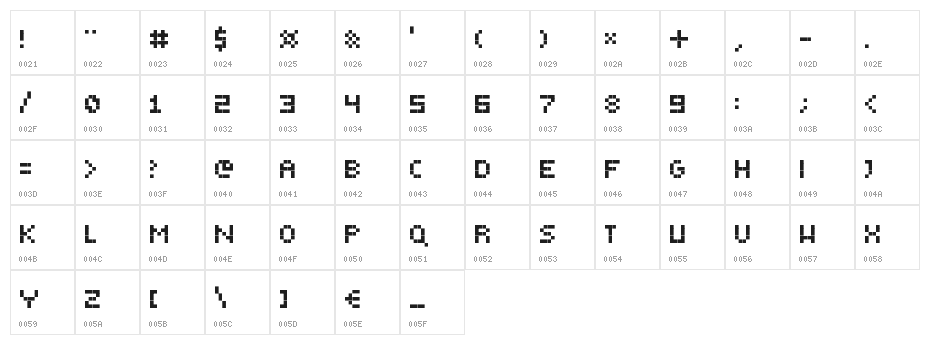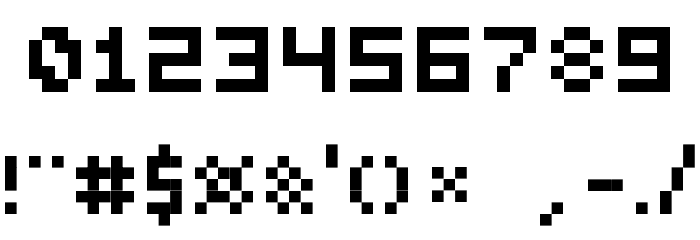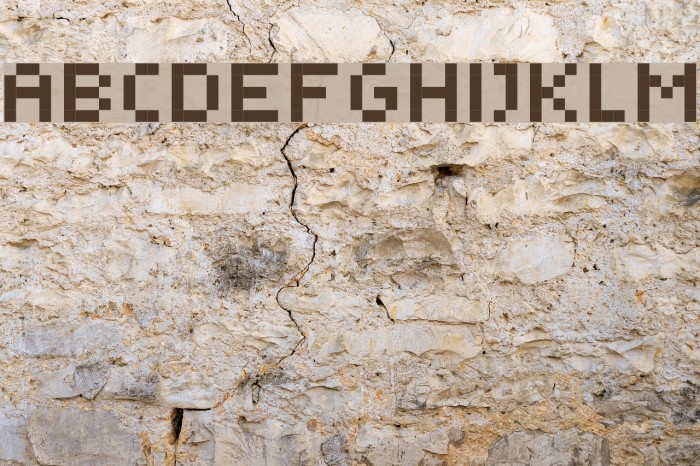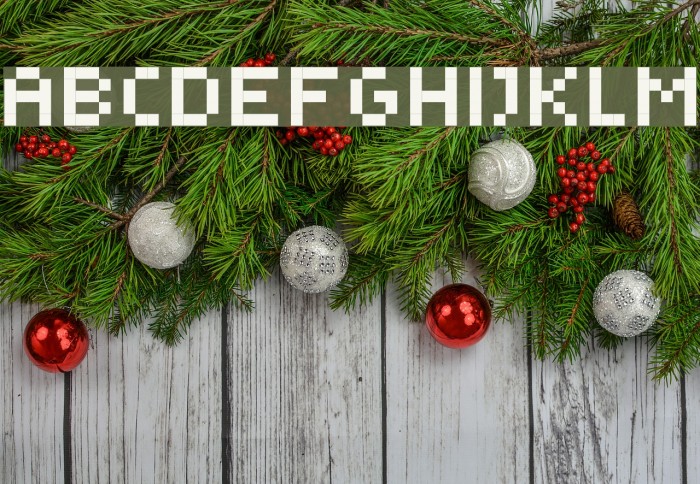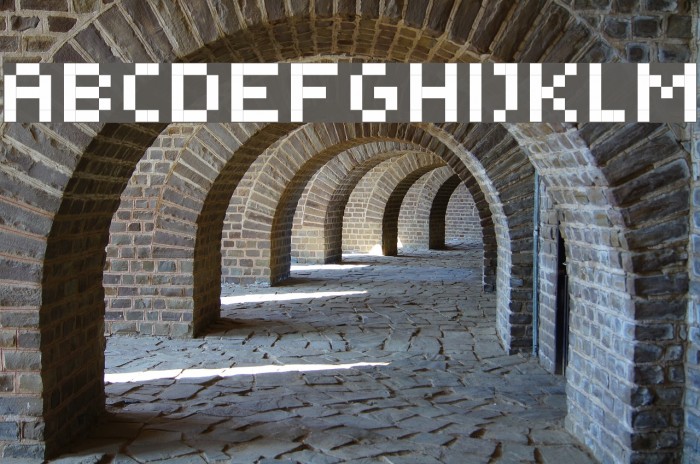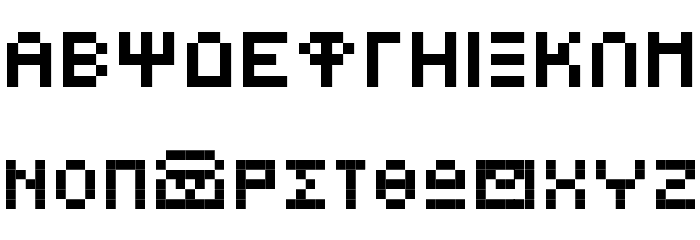
GreekBearTinyE Font
GreekBearTinyE Description
This font features a pixelated, blocky design reminiscent of early digital displays and retro video games. Each character is constructed from a grid of squares, giving it a distinctly geometric and mechanical appearance. The uppercase and lowercase letters maintain a consistent height, contributing to a uniform look. Numbers and special characters follow the same pixelated style, ensuring visual coherence across all elements. The font's simplicity and clarity make it suitable for digital-themed projects, evoking nostalgia for classic arcade games and early computer graphics.
| Use Case | Headlines, Logos, Digital displays |
| Proposed Projects | Ideal for retro video game graphics, digital art projects, tech-themed posters, and nostalgic branding. |